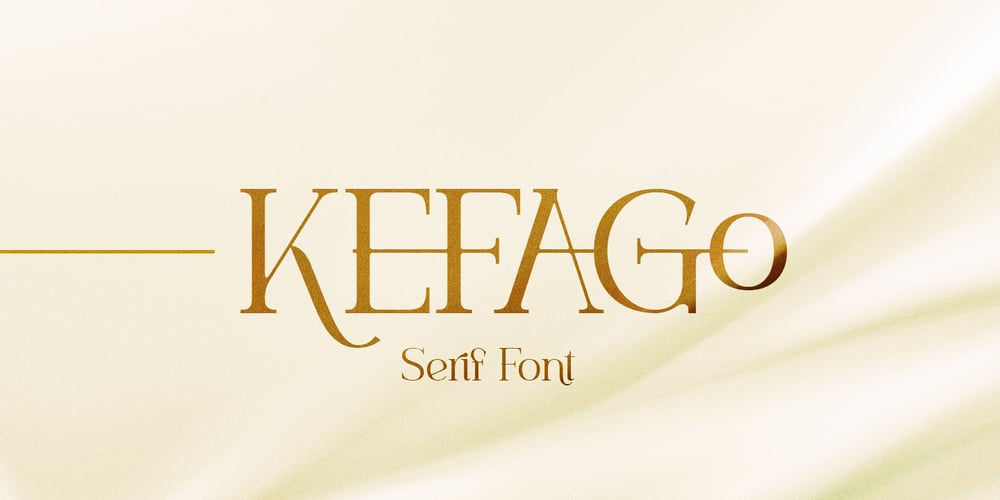
Kefago Font Family was designed by Jarnawi Saja and published by Grontype. Kefago contains 1 styles and family package options. Kefago is an elegant and stylish serif typeface. It’s sharp and light edges, that creates beautiful typographic adjacency. The font is perfect for text quotes and other design graphic projects such as wedding invitation card, Magazine Header and body text, flyer header and even logo text. Kefago features: Uppercase and lowercase glyph Numeral and punctuation Multilingual support Ligatures and alternates Thankyou for picking this font.if you have question, send me a message and i’am gladly to answer.regard, Grontype